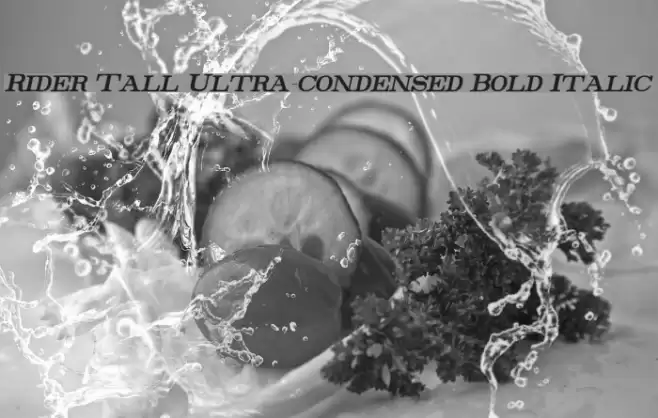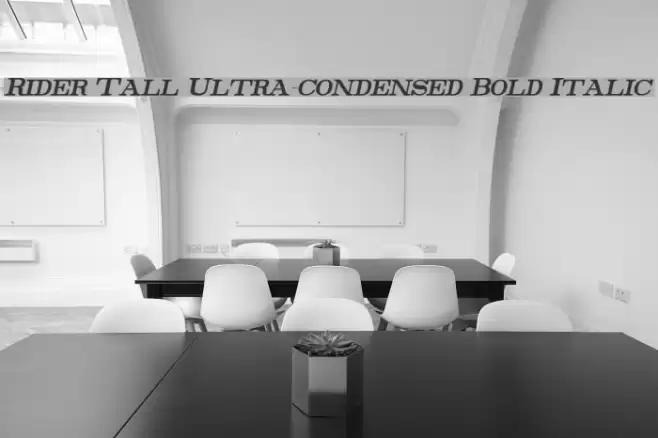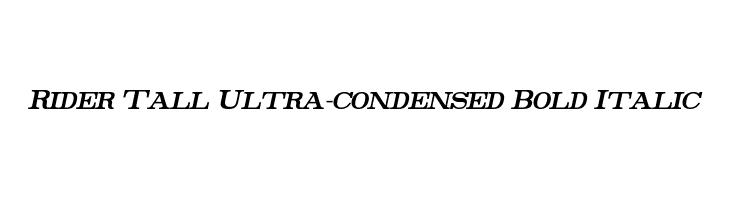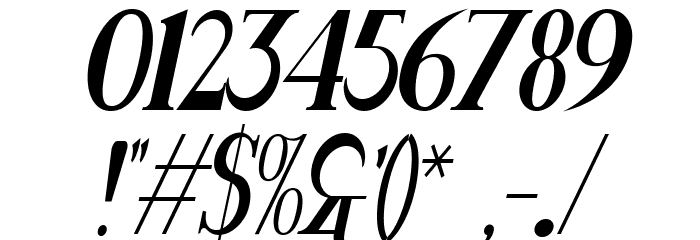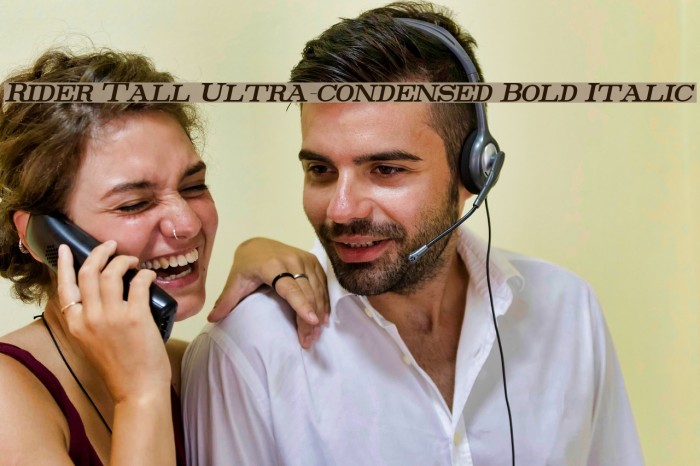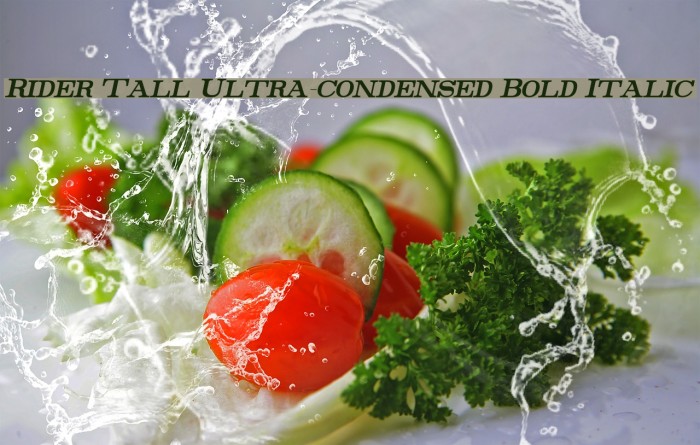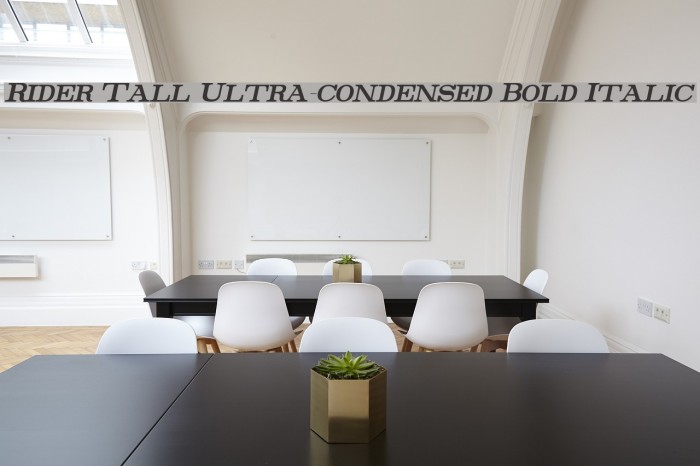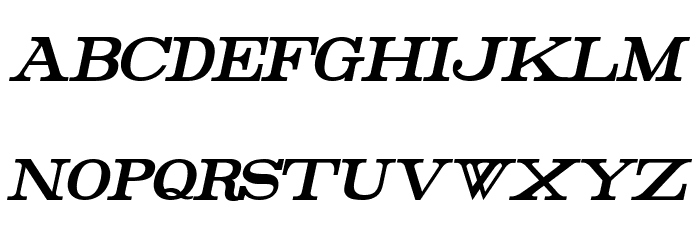
Rider Tall Ultra-condensed Bold Italic Font
Rider Tall Ultra-condensed Bold Italic Description
This font features an ultra-condensed and bold italic style, characterized by its tall and narrow letterforms. The strokes are thick, providing a strong visual impact, while the italic slant adds a dynamic and forward-moving feel. The uppercase and lowercase letters maintain a consistent height, contributing to a uniform appearance. The numbers are equally bold and italicized, ensuring they stand out prominently. Special characters are designed with the same bold and italic attributes, making them cohesive with the overall font style. The font's condensed nature allows for efficient use of space, making it suitable for designs where space is limited but impact is needed.
Ultra-condensed, bold italic font with tall, narrow letterforms from Uncategorized fonts.
- Proposed Projects: Ideal for headlines, posters, and branding projects that require a strong, impactful presence.
- Character Spacing: Tight